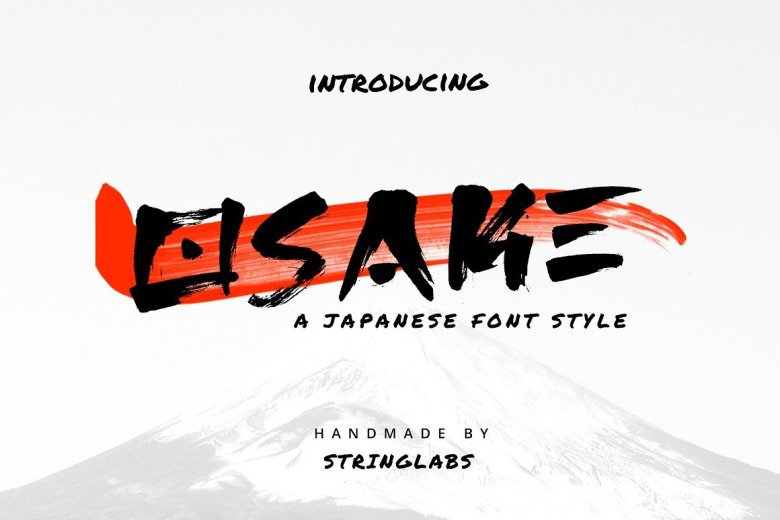
Osake Brush Font
Hello ! This is newest product called Osake Font. This is a Brush Script Font with Handwritten textured style. The font was created with authentic handmade brush pen! It’s designed and shared by StringLabs. Osake Brush is a japanese brush font that we made with excellent taste.
We combine ethnic and cultural elements in each of the glyphs. This It’s suitable for those of you who like japanese culture, besides this font is also suitable for those of you who have a japanese restaurant, japanese clothing brand, japanese arts, and business purpose related with japanese culture.